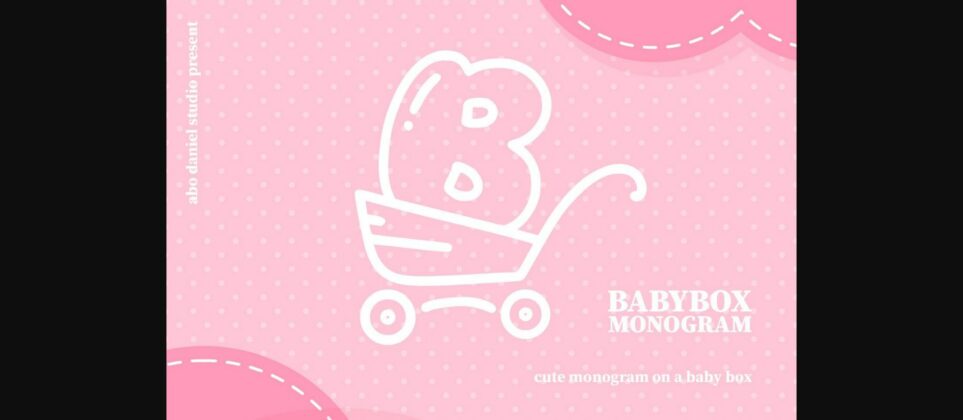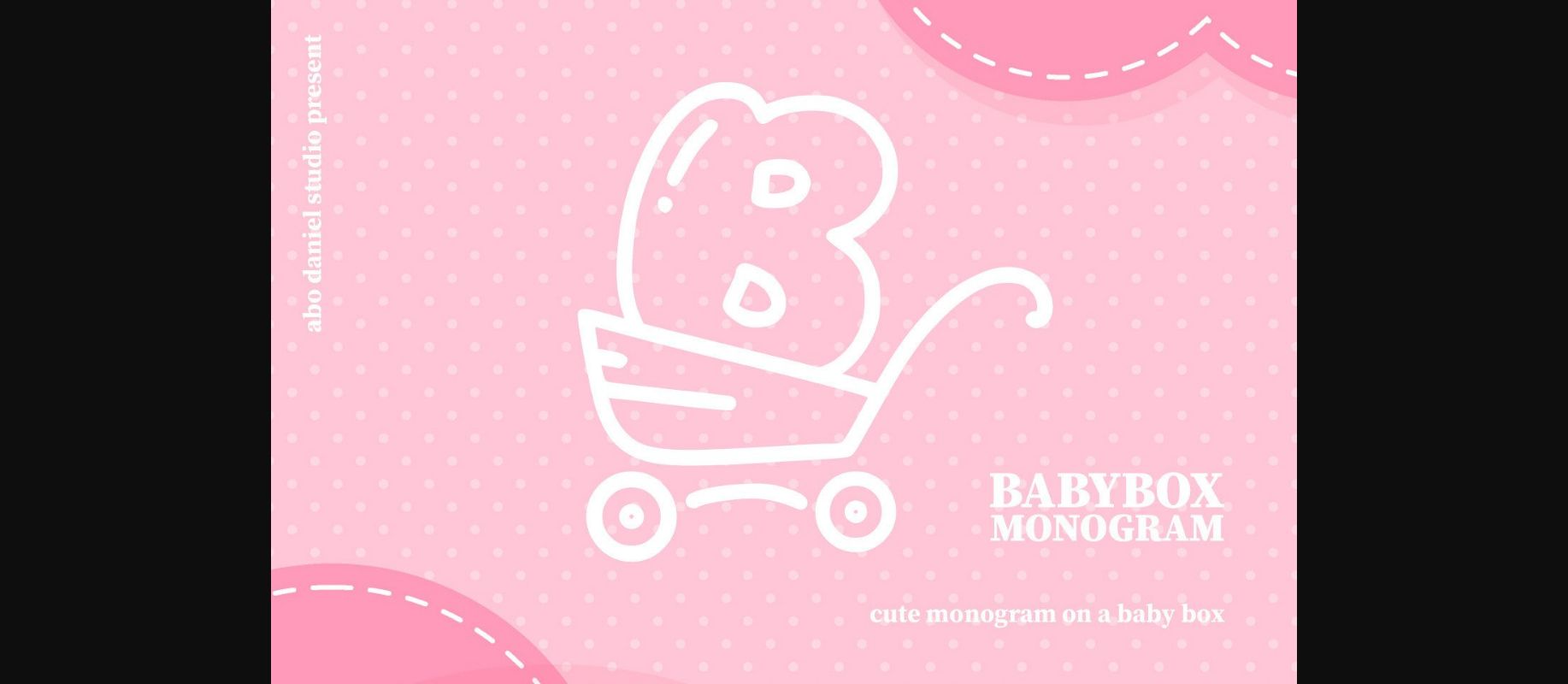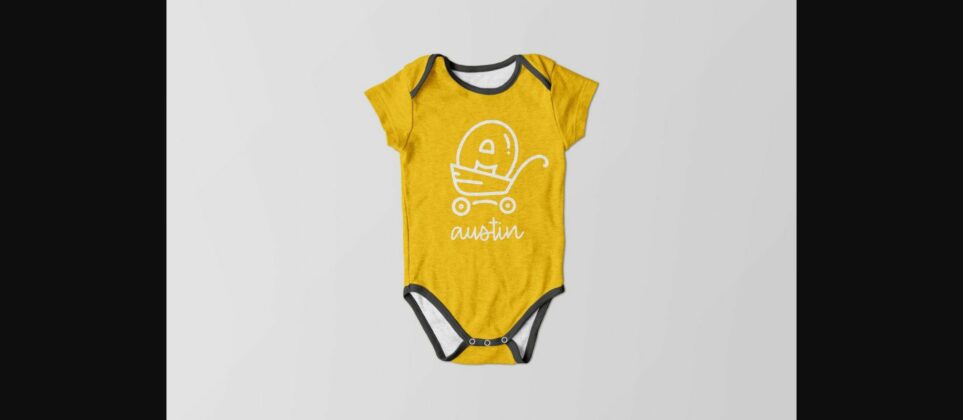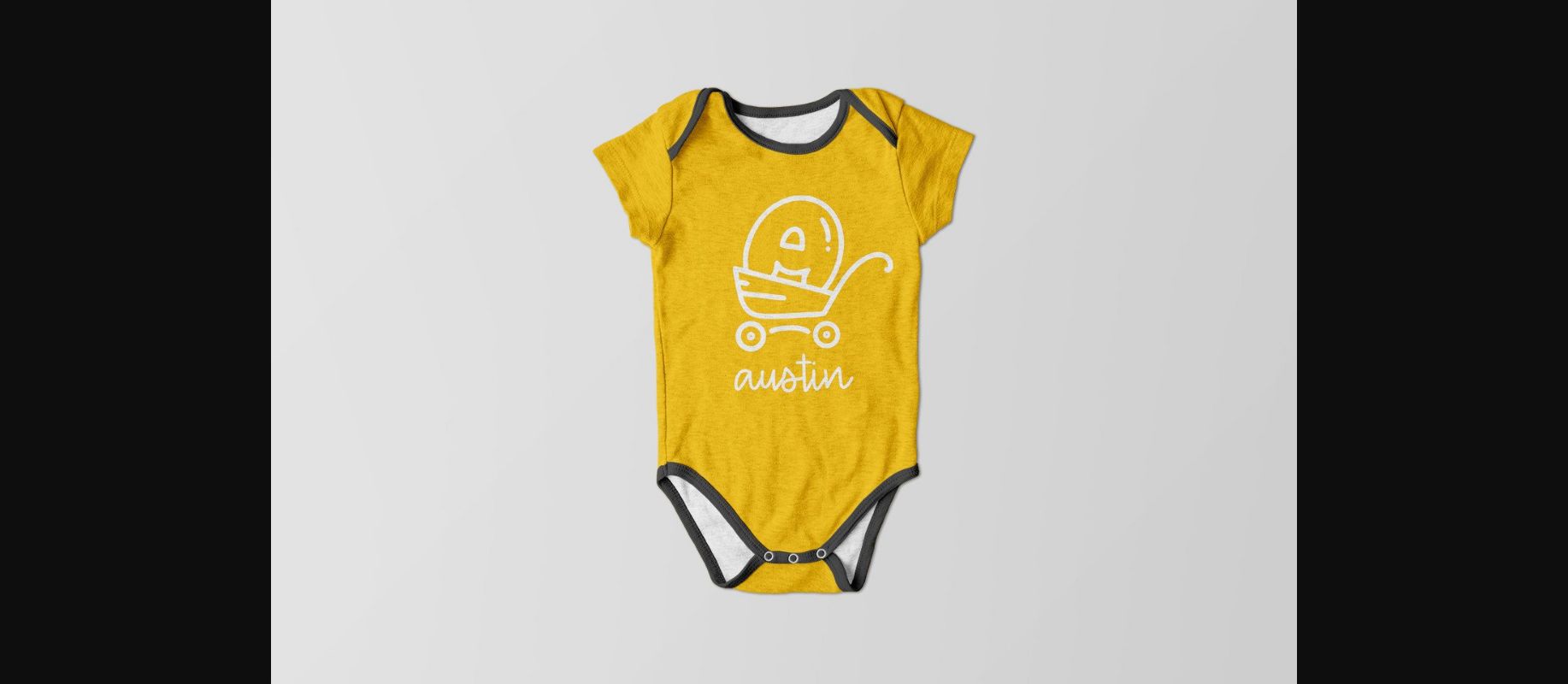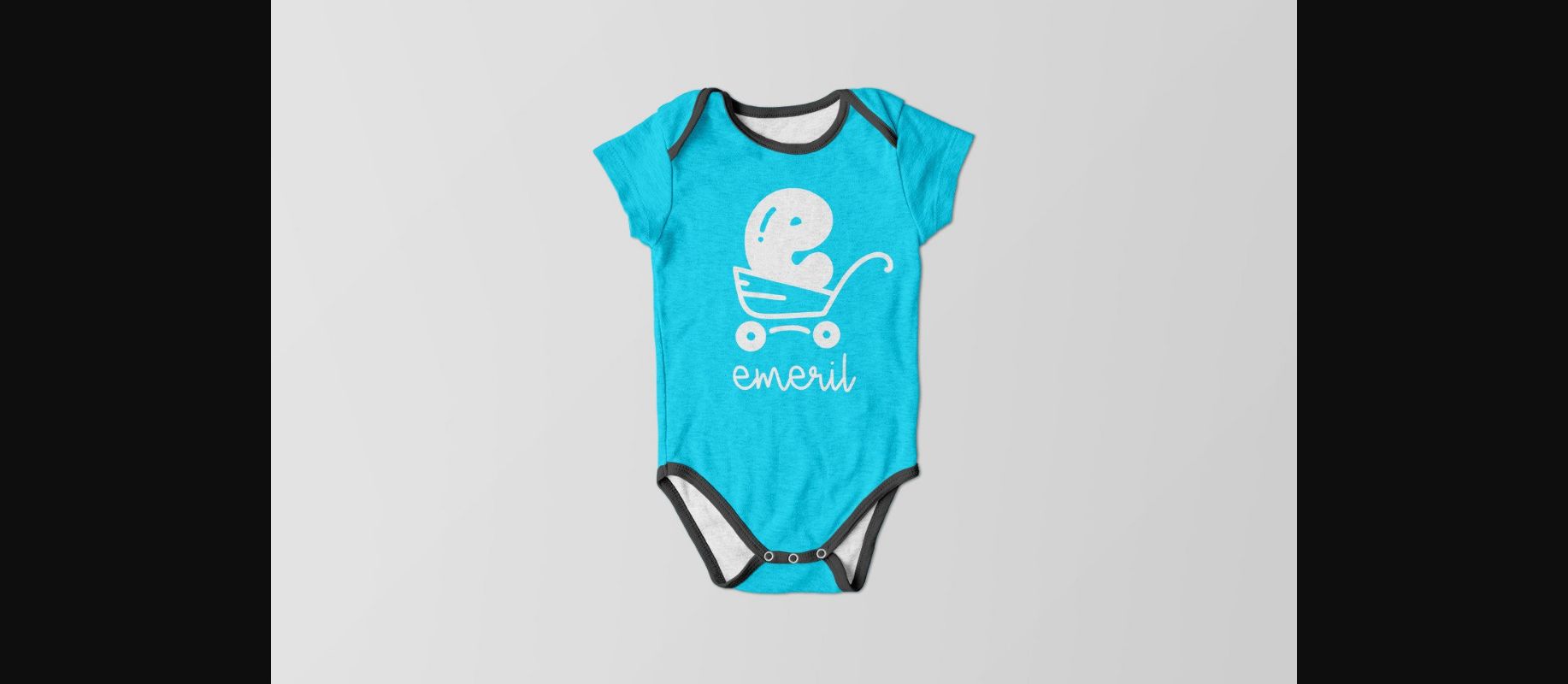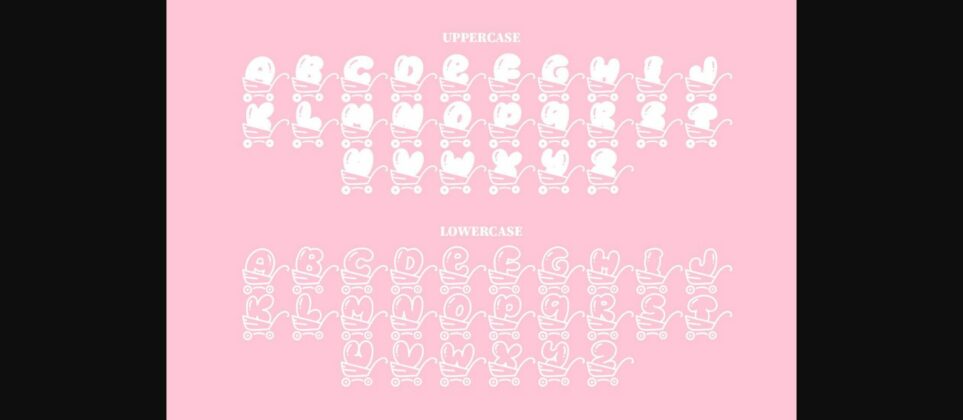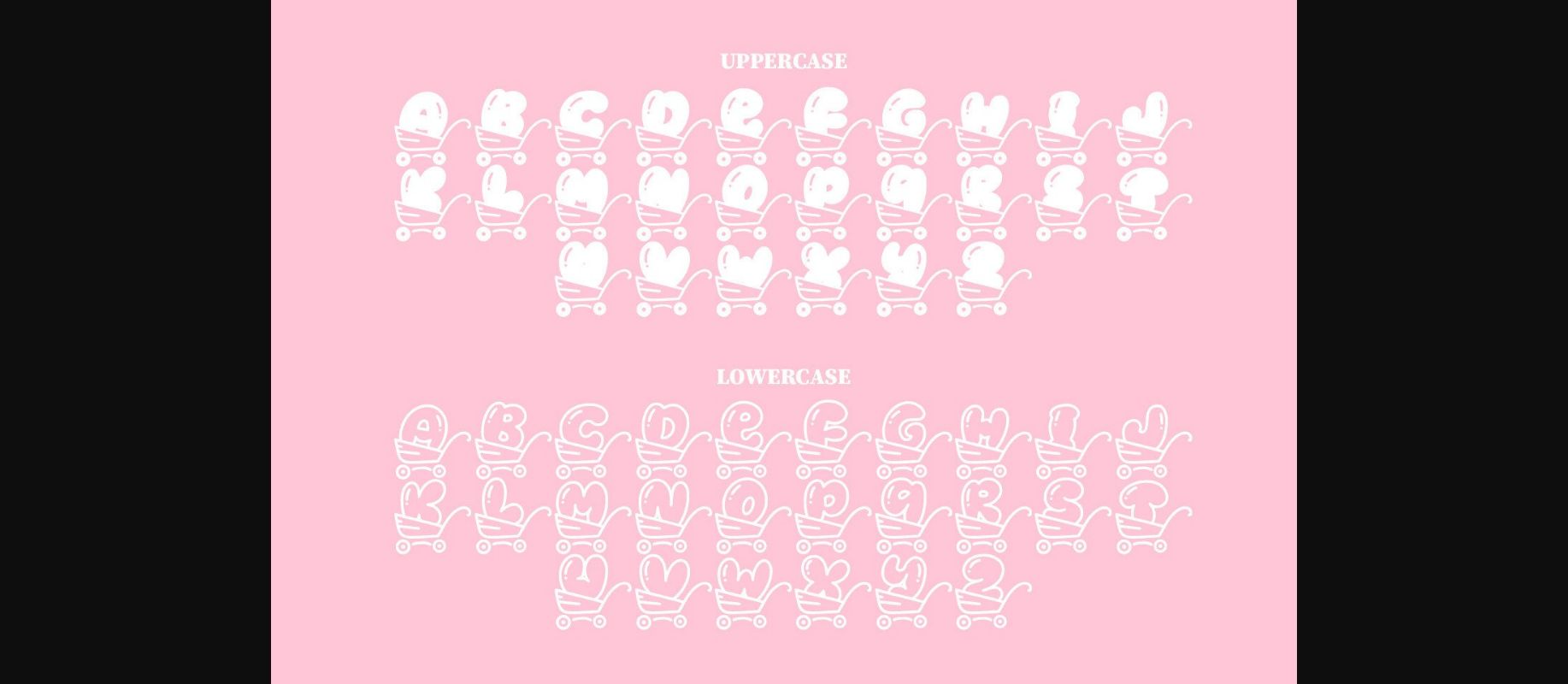
About Babybox Monogram Font
Babybox Monogram– a cute monogram on a baby box –
Babybox Monogram is great for t-shirt designs, titles, mugs, tote bag designs, cards, banners, social media, and other craft projects.